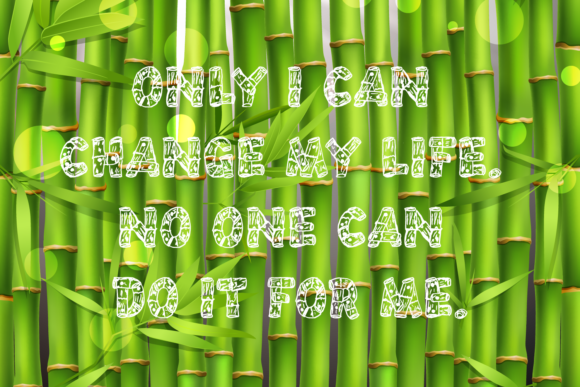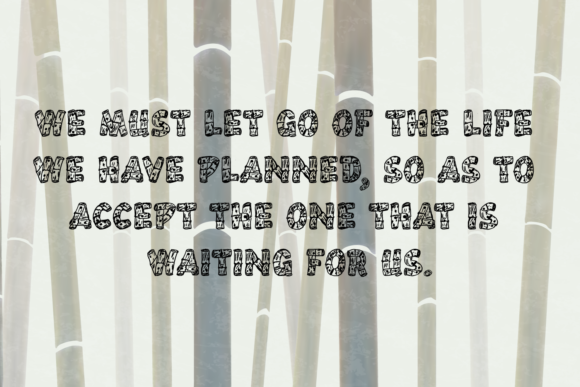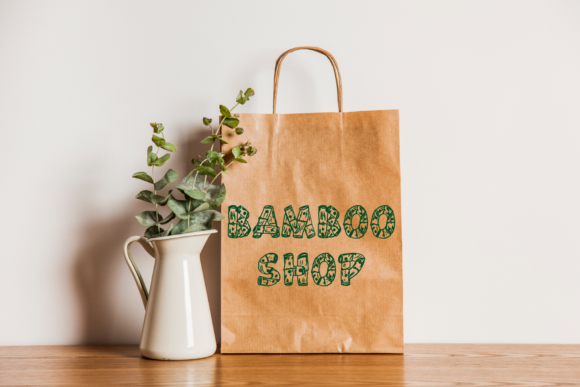
Plants Draw is an incredibly cool and distinct outlined display font.
Whether you use it for cartoon related designs, children games or just any creation that requires a lovely touch, this font will be an amazing choice .
Plants Draw Font offers exceptional quality and versatility, making it a valuable addition to your design toolkit. Whether you’re creating for personal projects or commercial use, Plants Draw Font delivers professional results.